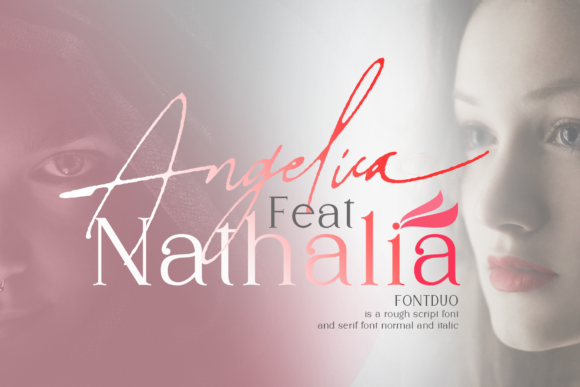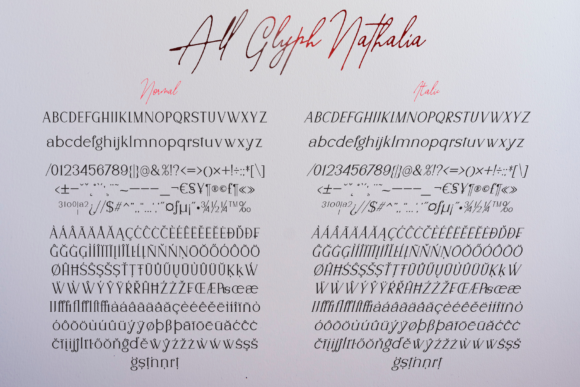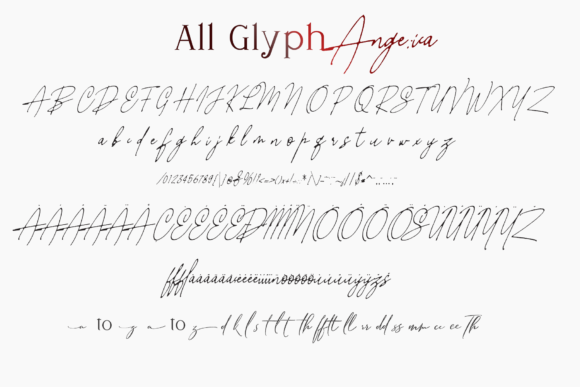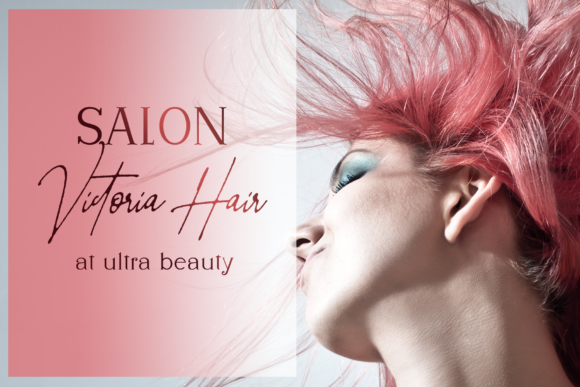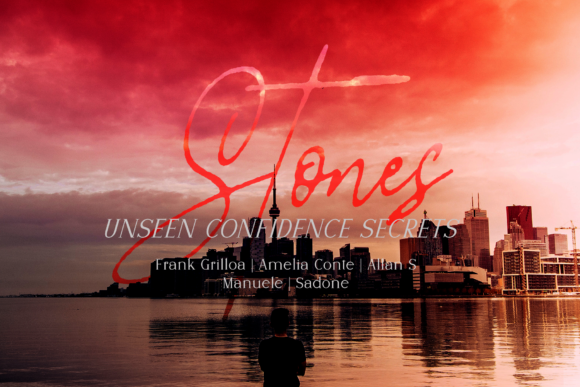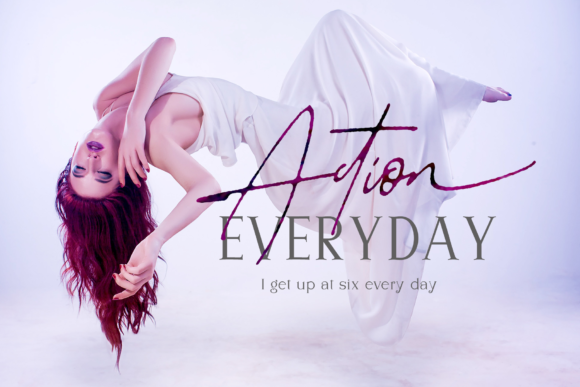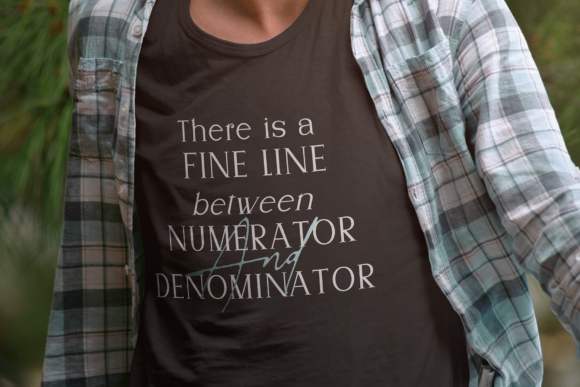
Angelica Feat Nathalia Font
About Angelica Feat Nathalia Font
Angelica Feat Nathalia duo is a match made in heaven. Angelica is a script font with typical handwriting; Nathalia is a normal and italic serif font with its delicate and gentle characteristic. It will elevate a wide range of design projects to the highest level, be it branding, headings, wedding designs, invitations, signatures, logos, labels, and much more!